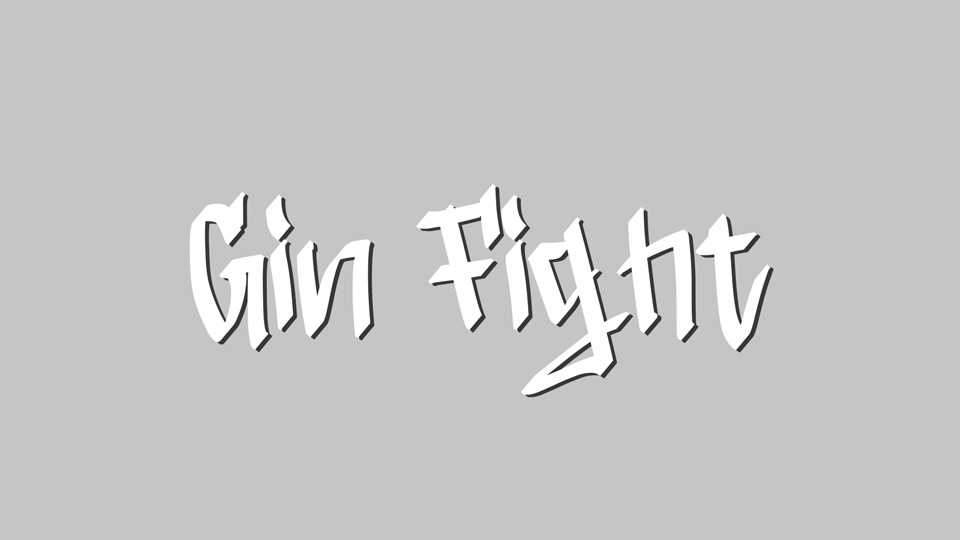
Download Gin Fight font, a hand lettered typeface influenced by street art and calligraphy. Gin Fight is suitable for modern urban artworks, can also be used for posters, tagging, apparel prints, etc.